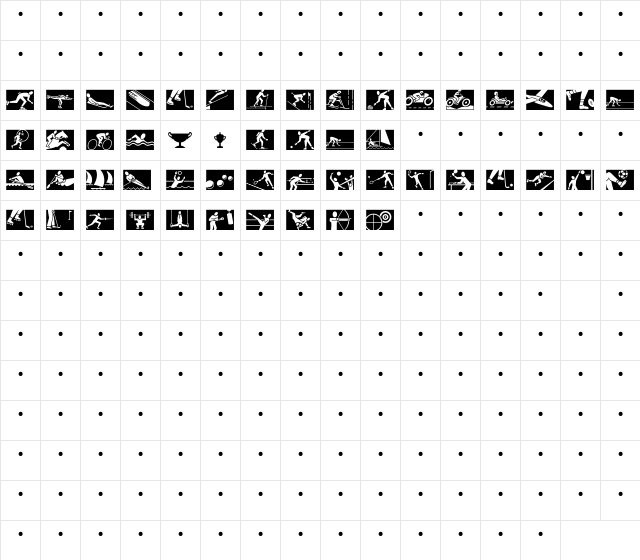
Sports Two MT Regular
Design Context for Sports Two MT
Sports Two MT brings high-energy athletic personality to the page - its confident, muscular forms are built for impact.
Pro Tip: Use Sports Two MT in all-caps headlines where its athletic energy can fully express itself. Pair with a solid, simple sans for supporting text.